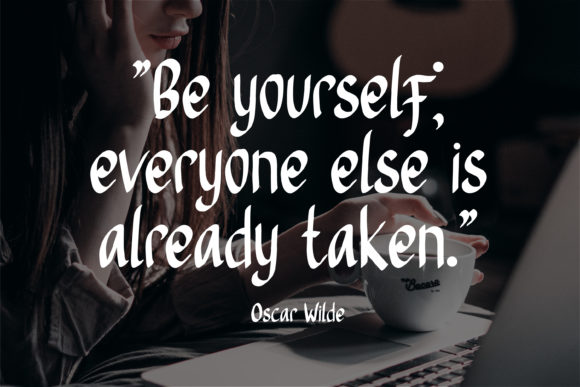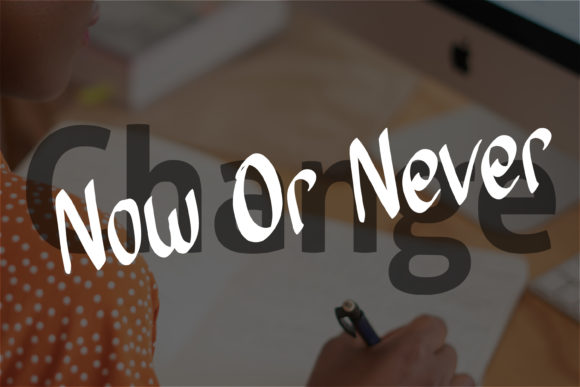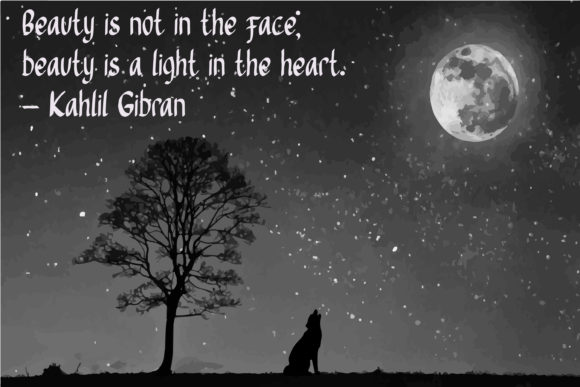
Introduction to Kindless Font
Kindless is a playful and modern script font.
Key Features of Kindless Font
Why Choose Kindless Font?
Kindless Font offers exceptional quality and versatility, making it a valuable addition to your design toolkit. Whether you’re creating for personal projects or commercial use, Kindless Font delivers professional results.